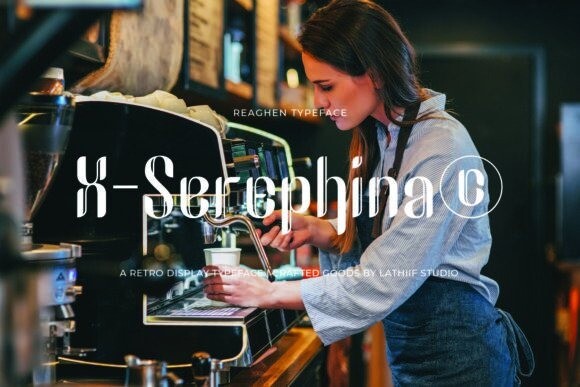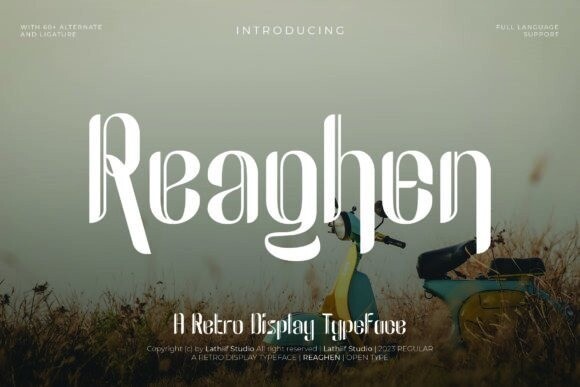
Reaghen Font
Reaghen Font is a Retro Display with a vintage and antique vibe. The special design on the alternates and ligatures creates an antique vibe.